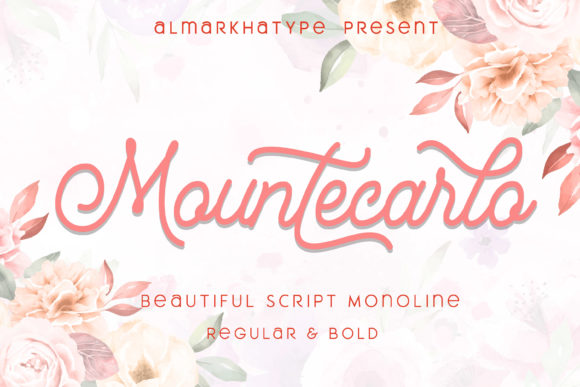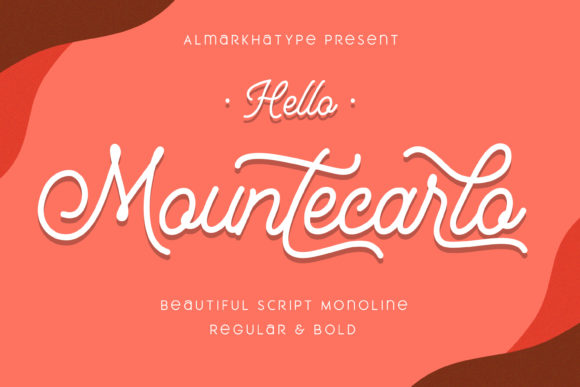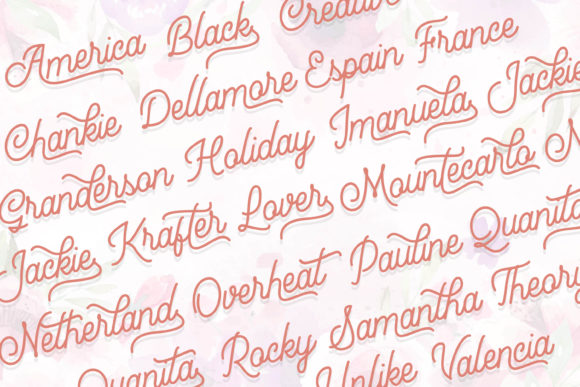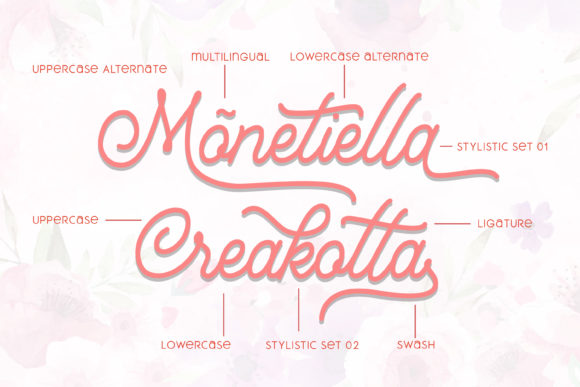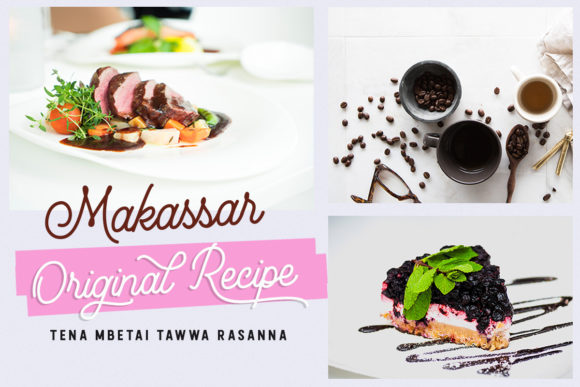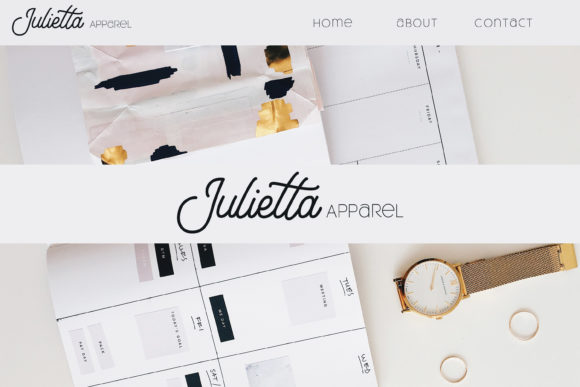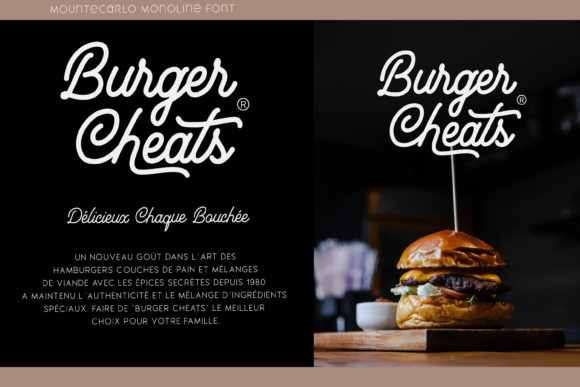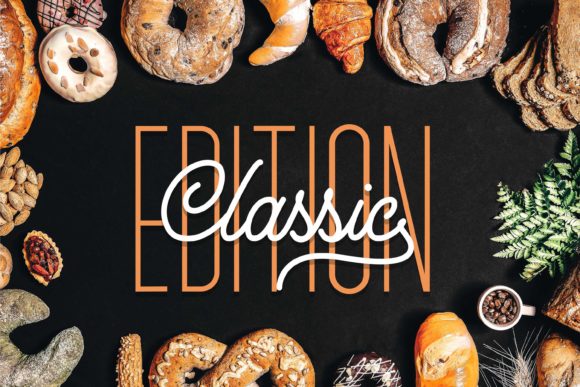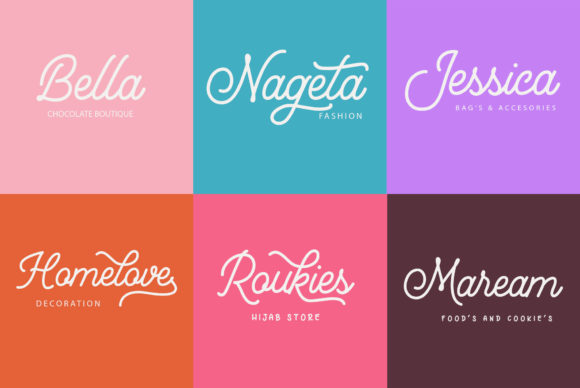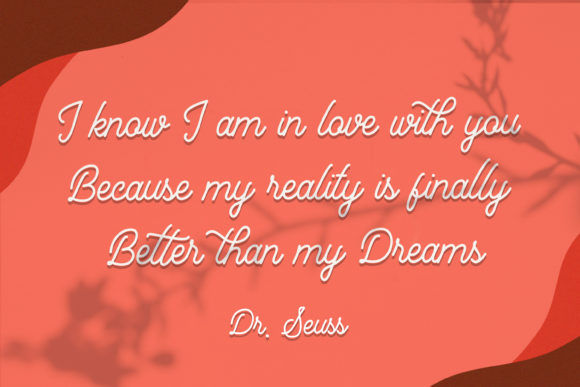
Mountecarlo Font
About Mountecarlo Font
Mountecarlo is an incredibly stunning handwritten font with beautiful swashes. It will turn any design project into a standout!